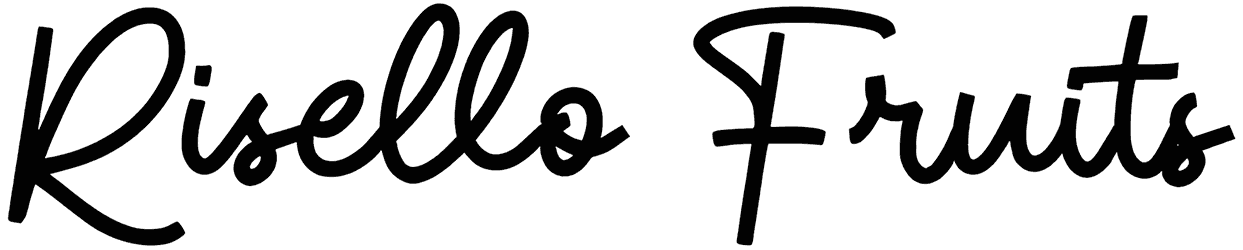
Risello Fruits Font
There is no need to worry about finding a suitable font for designing eye-grabbing graphic content while you have access to our incredible archive and enjoy a magical script font such as Risello Fruits that carries a feeling of professionalism, personalization, dreaminess, or dynamism.
It makes your artwork, such as illustrations, flyers, menus, billboards, or headlines, look more captivating. Needless to say, numbers are not included in this magical masterpiece.